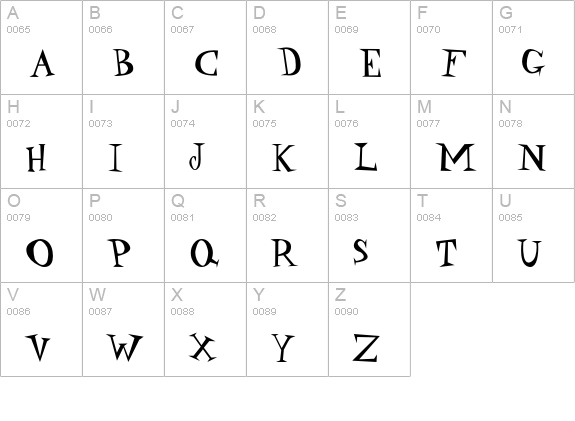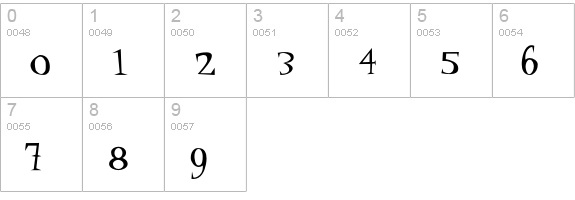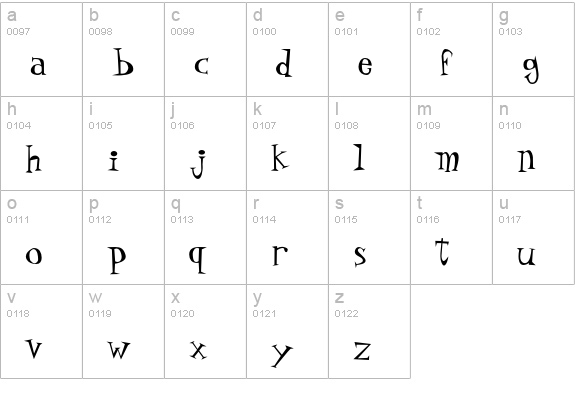
DaddyOHip Font Details
Introducing DaddyOHip, a bold and captivating font that exudes confidence and style. This unique typeface combines the perfect blend of modernity and classic appeal, making it an ideal choice for a wide range of design projects. With its strong, thick lines and striking letterforms, DaddyOHip commands attention and adds a touch of edginess to any creative endeavor. Whether you're designing a poster, logo, or website, this font will effortlessly elevate your work and make a lasting impression. What sets DaddyOHip apart is not just its impeccable design, but also its accessibility. This font is available for free download at FontsMarket.com, allowing designers and enthusiasts alike to easily access and utilize its immense potential. With just a few clicks, you can bring your visions to life and create stunning visuals that leave a lasting impact. The versatility of DaddyOHip is truly remarkable. It can be used for a wide range of projects, from fashion and beauty to music and entertainment. Its bold and energetic personality instantly grabs attention and adds a touch of vibrancy to any design. With DaddyOHip, you no longer have to compromise on style or quality. This font effortlessly combines the best of both worlds, offering a sleek and modern aesthetic while maintaining a timeless appeal. Its clean and crisp lines ensure legibility, even at smaller sizes, making it an excellent choice for both print and digital applications. Whether you're a professional designer or simply a creative individual looking to add a touch of flair to your projects, DaddyOHip is the perfect font for you. Download it for free at FontsMarket.com today and unlock a world of design possibilities. Let DaddyOHip be the secret weapon in your creative arsenal, helping you stand out from the crowd and make a bold statement with every project you undertake.